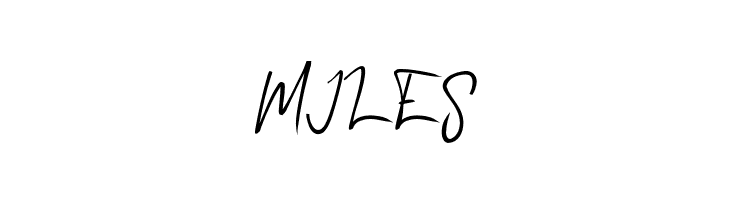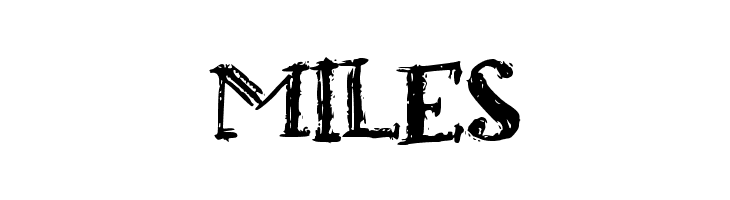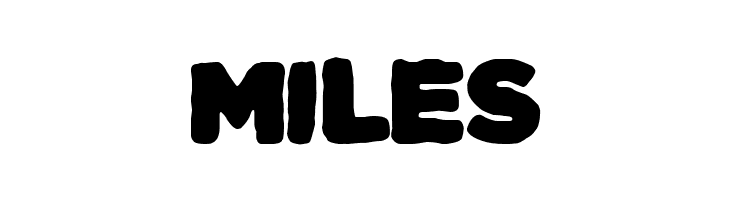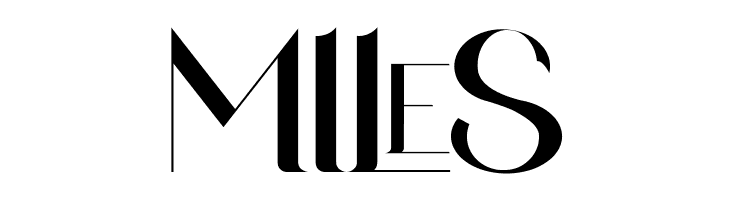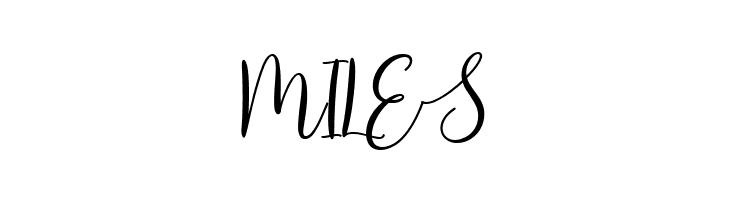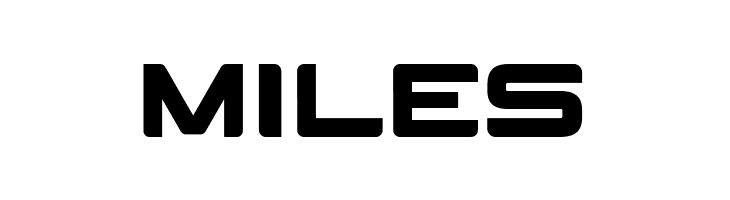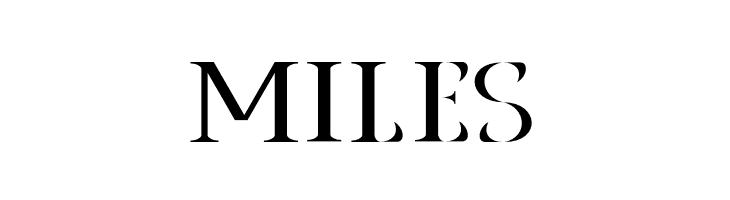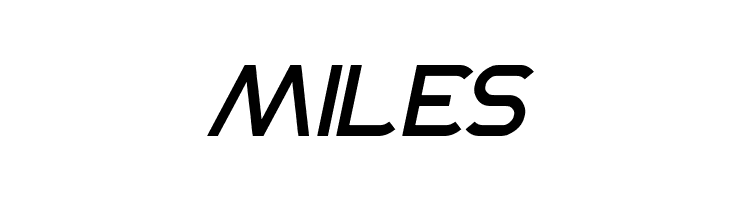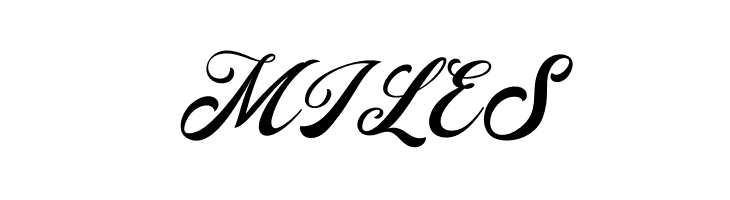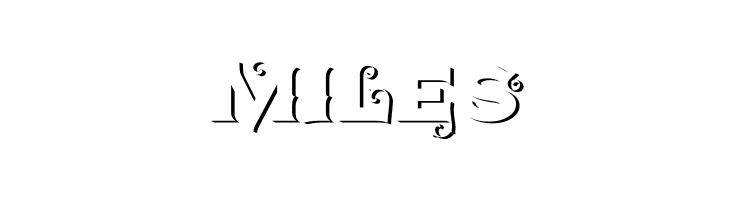
An elegant script font with flowing, cursive letterforms and ornate details.
A modern, high-contrast font with elegant serifs and artistic special characters.
Thin, elegant handwritten script with connected, flowing letters.
A modern serif font with bold strokes and elegant curves.
A flowing, elegant script font with ornate uppercase and harmonious lowercase letters.
A modern, geometric font with a clean and structured appearance.
A bold, modern geometric font with a clean and angular design.
A modern, italicized font with a sleek and dynamic appearance.
A cursive, handwritten font with elegant, flowing strokes.
A fluid, elegant script font with a handwritten calligraphic style.
A modern, geometric font with clean lines and a bold presence.
A bold, decorative font with intricate swirls and flourishes.
A bold, decorative font with intricate swirls and vintage flair.
A fluid, artistic font with continuous strokes and a modern, abstract style.
An abstract, artistic font with thin, fluid strokes and a modern, decorative style.
A decorative font with bold geometric shapes and intricate detailing.
A decorative font with bold, geometric characters and intricate cut-out details.
An ornate and decorative font with intricate curls and embellishments.
A decorative and whimsical font with intricate swirls and curls.
An ornate, vintage-style decorative font with intricate details and high contrast.
A bold, decorative font with intricate flourishes and high contrast.
A tall, narrow font with a bold, modern appearance and tight spacing.
A bold, rounded font with a strong, playful presence.
A bold, geometric font with sharp angles and a blocky, aggressive style.
A bold, modern font with a futuristic and geometric design.
A bold, distressed font with a grunge-like texture and jagged edges.
A bold, rugged font with a distressed, graffiti-like appearance.
A decorative, calligraphic font with flowing, expressive lines and intricate details.
A whimsical and decorative font with playful curls and loops, ideal for creative projects.